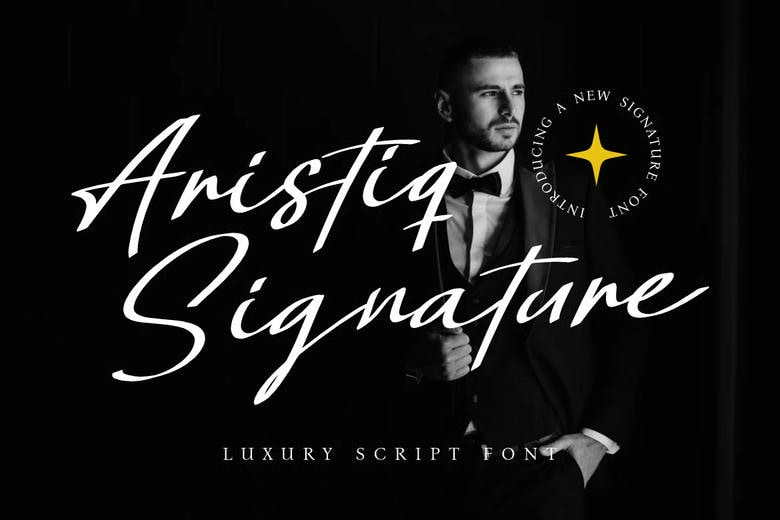
Aristiq Signature Font
Aristiq Signature Luxury Script Font is a combination of the ideal balance between elegance and genuineness. Every letter is made in natural handwritten curves and this makes it look elegant but modern. The small upstrokes and thick downstrokes demonstrate the calligraphic touch which is personal and professional at the same time.
Its flowing style resembles an authentic signature and it is perfect in the projects requiring a high profile and an exclusive look. Whether it is the slick wedding invitations or the high-end product packaging, this font makes any layout a bit better with its beauty.
Its script type focuses on style, where the versatility of the readability makes it usable not only in digital designs but also in print designs. Aristiq Signature is a perfect fit with logos, personal brands, fashion brands and editorial titles.
Combined with minimalist designs or vintage black-and-white photography, it is highly noble and eternal beauty. All curves and flourishes are created to emphasize exclusiveness and this font will be an asset to any projects where identity, artistry, and refinement should be displayed.
Aristiq Signature Luxury Font